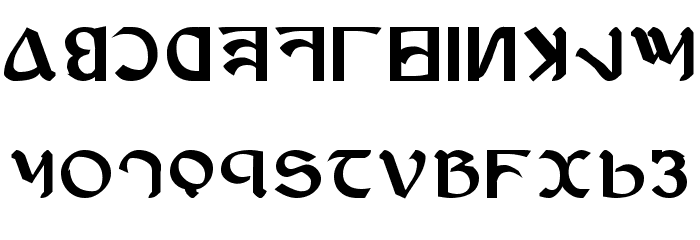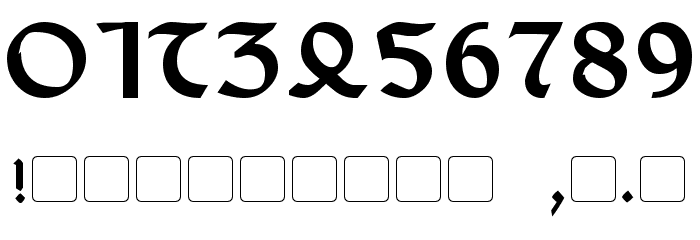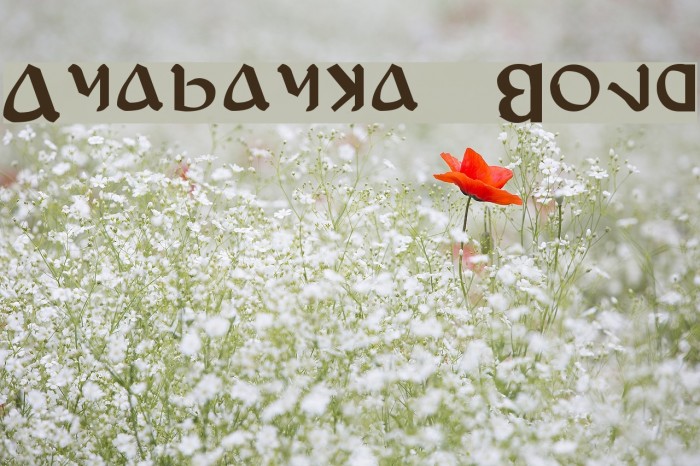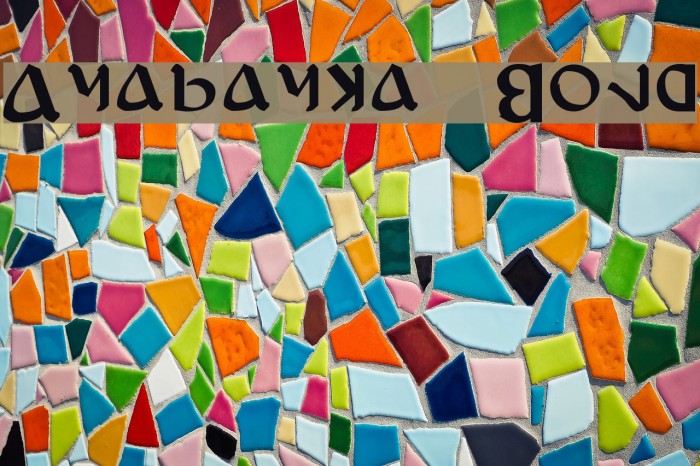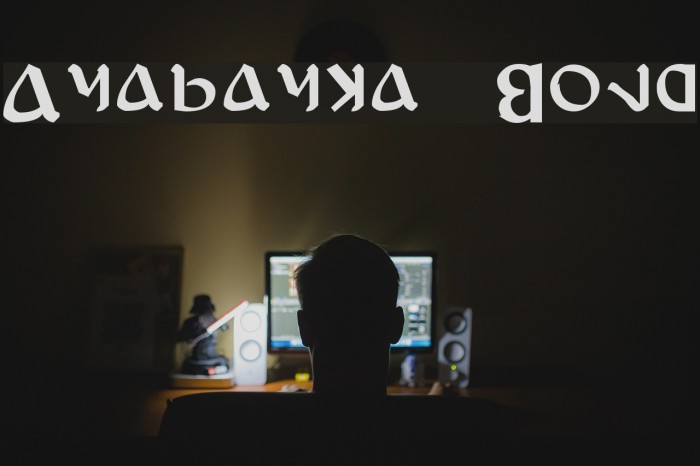
Anayanka Bold Font
This font features a bold and striking design with a unique blend of geometric and angular elements. The characters are crafted with sharp edges and a distinct style that combines both modern and traditional influences. The uppercase letters exhibit a strong presence with their wide and commanding forms, while the lowercase letters maintain a consistent aesthetic that complements the overall design. The numerals are equally bold, ensuring readability and visual impact. Special characters are designed to match the font's overall theme, providing a cohesive look across all text elements. This font is ideal for projects that require a bold statement and a touch of creativity.
A bold, geometric font with sharp edges and a modern-traditional blend.